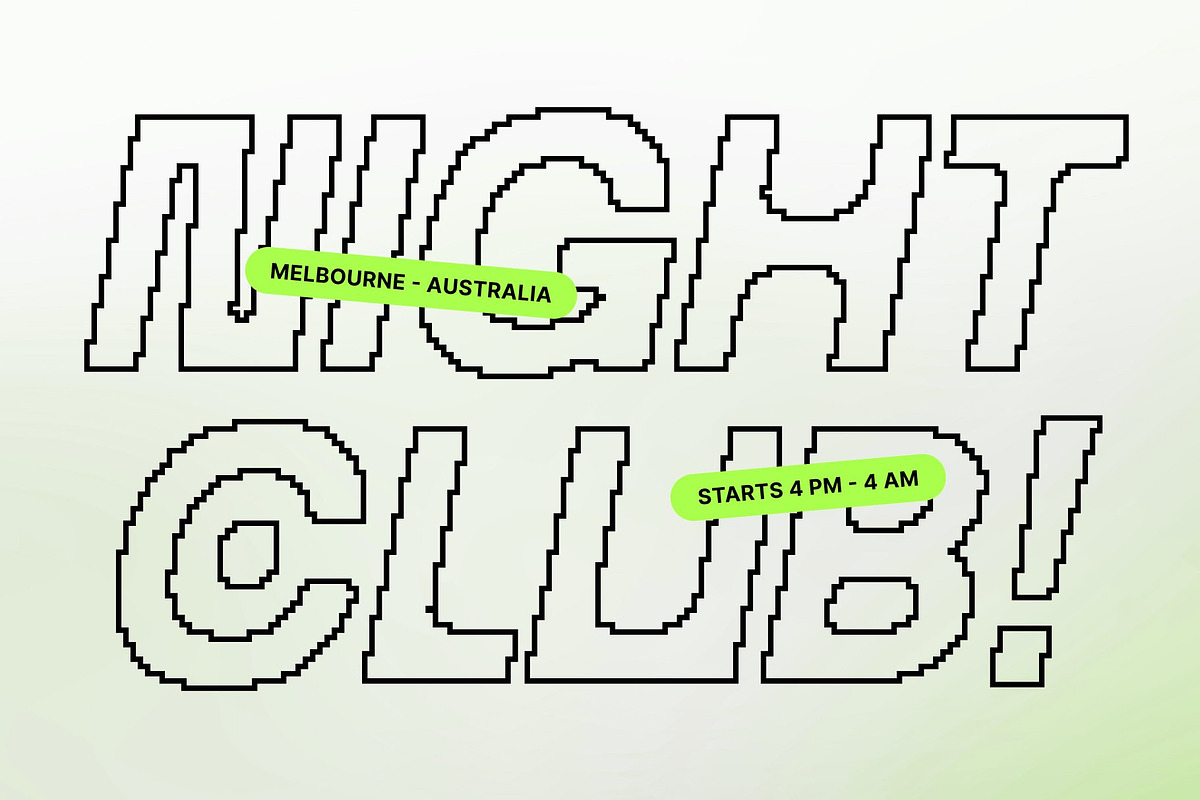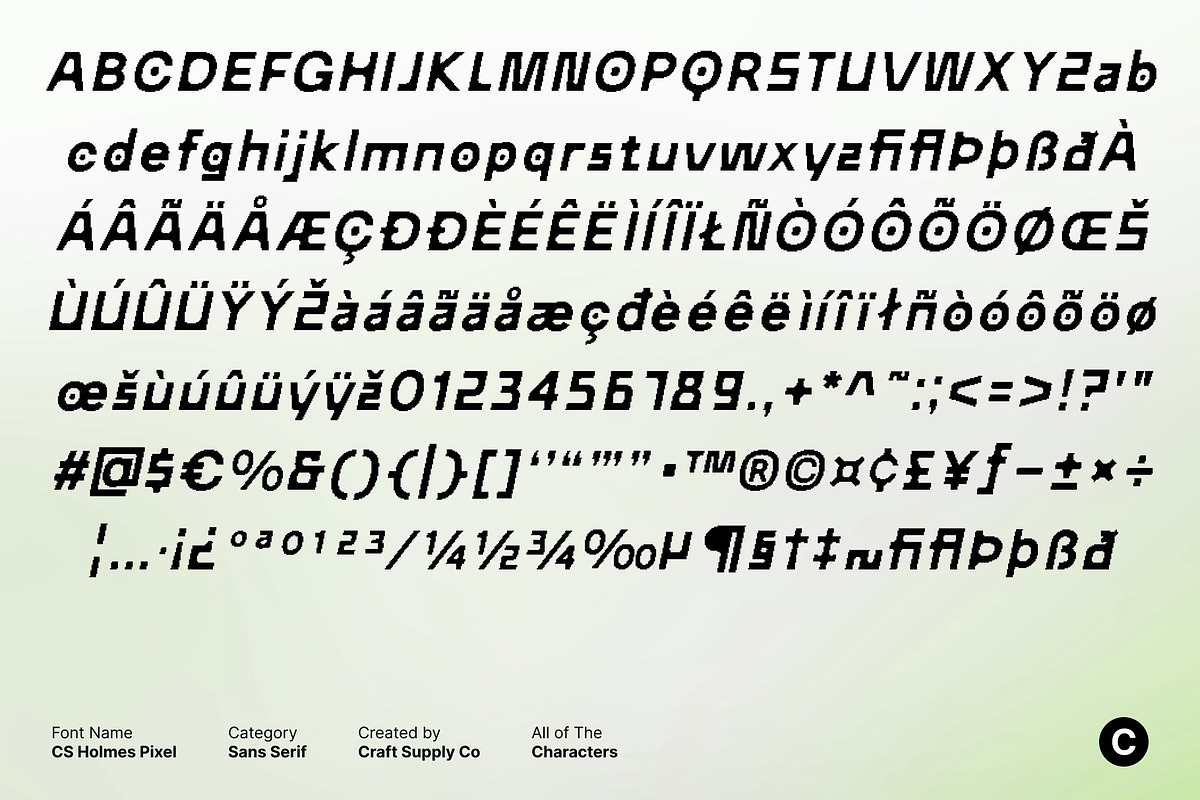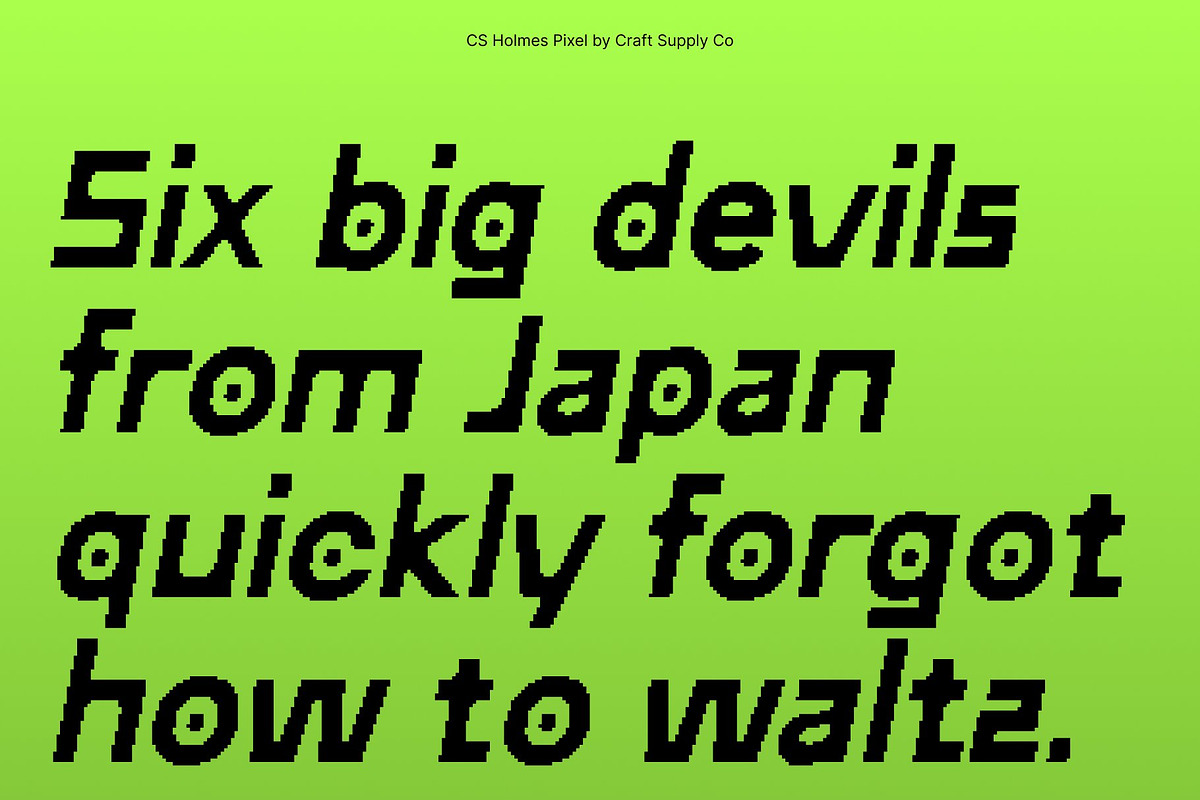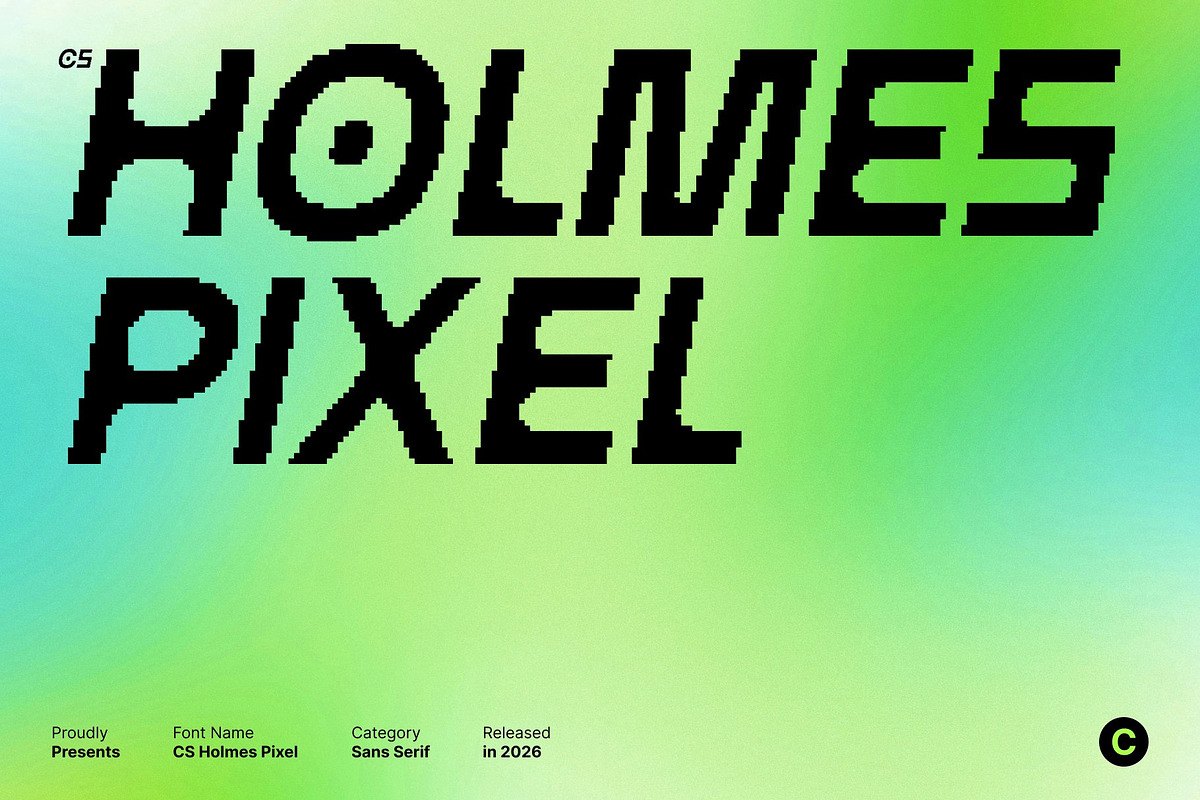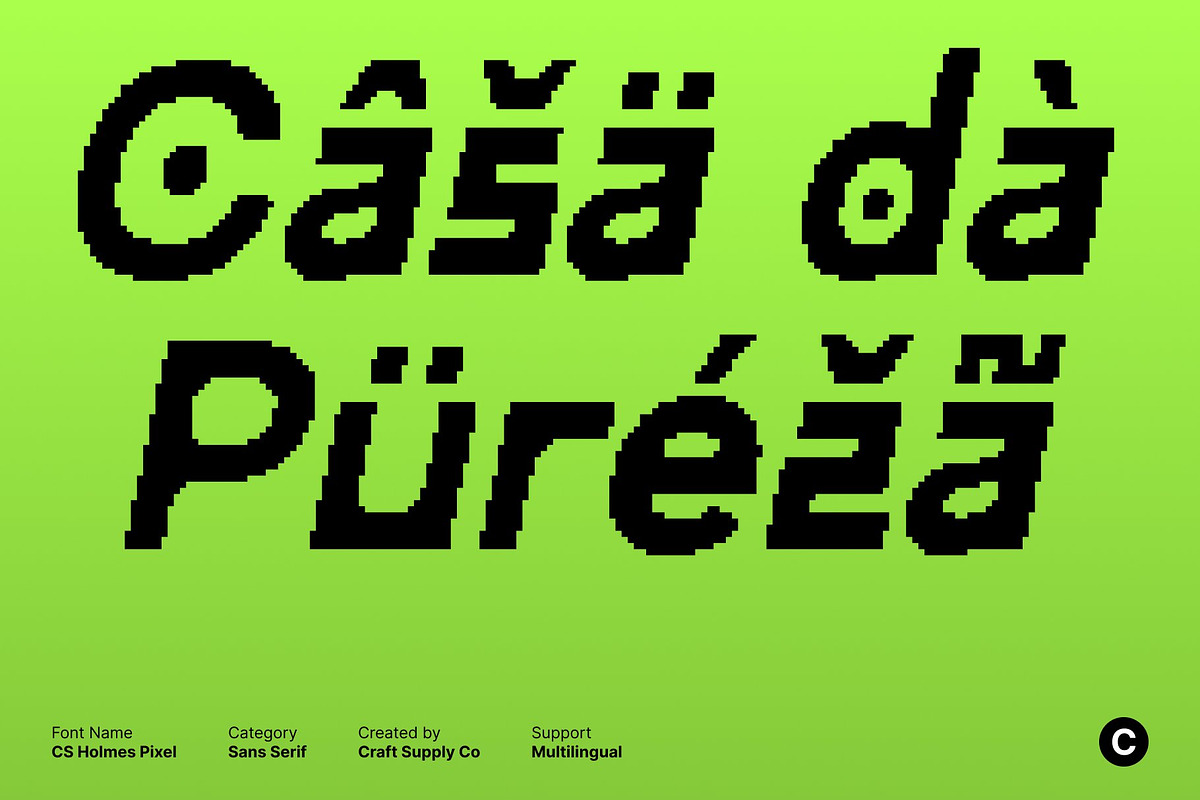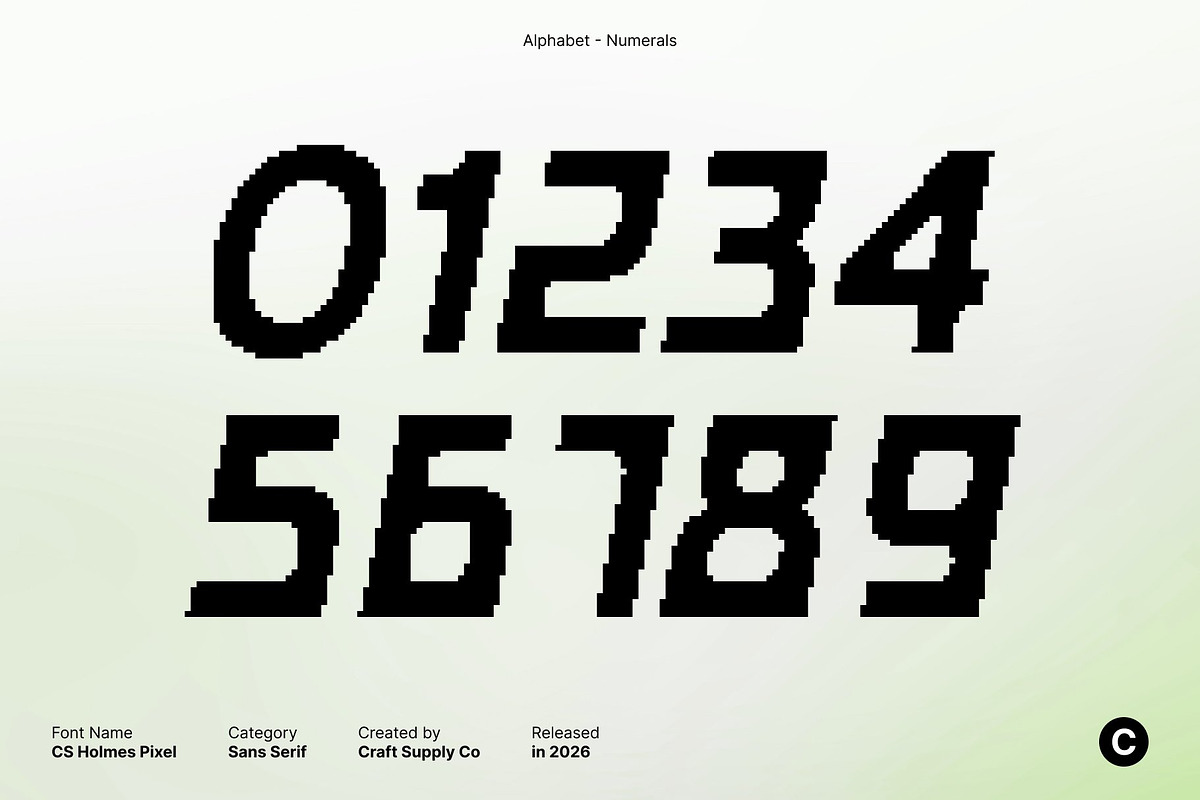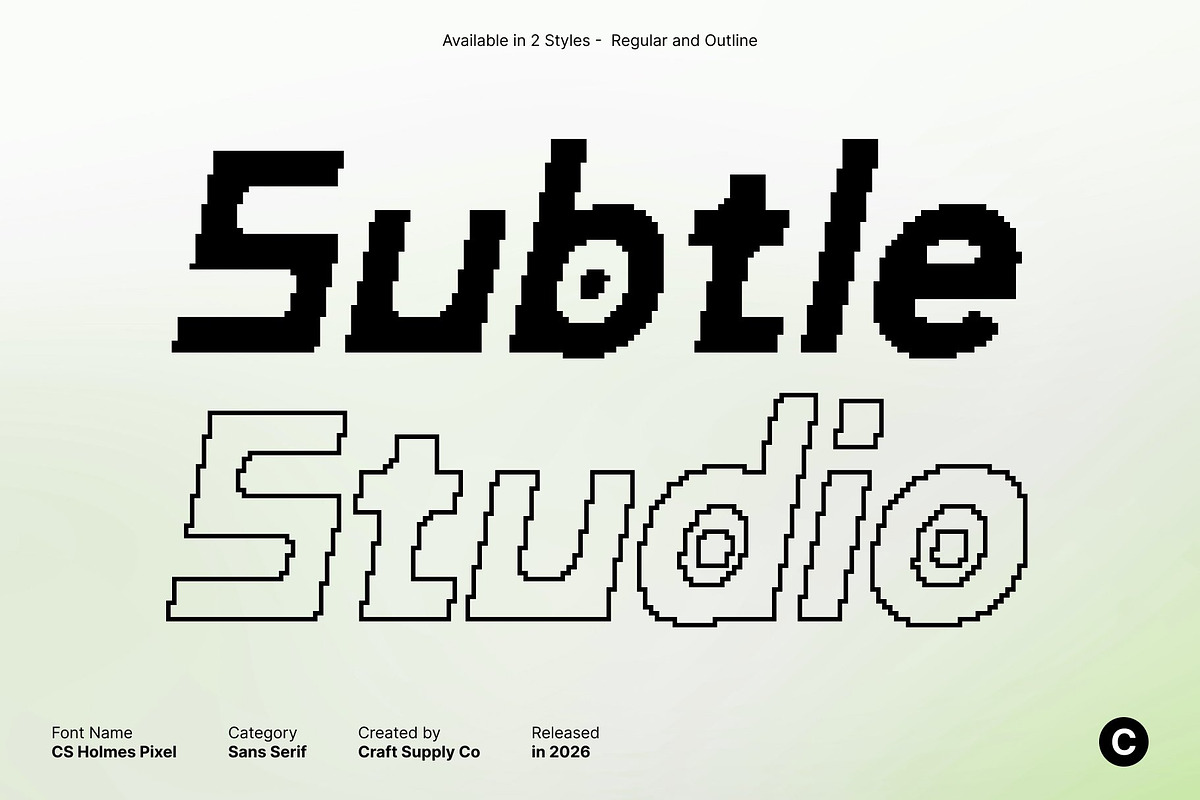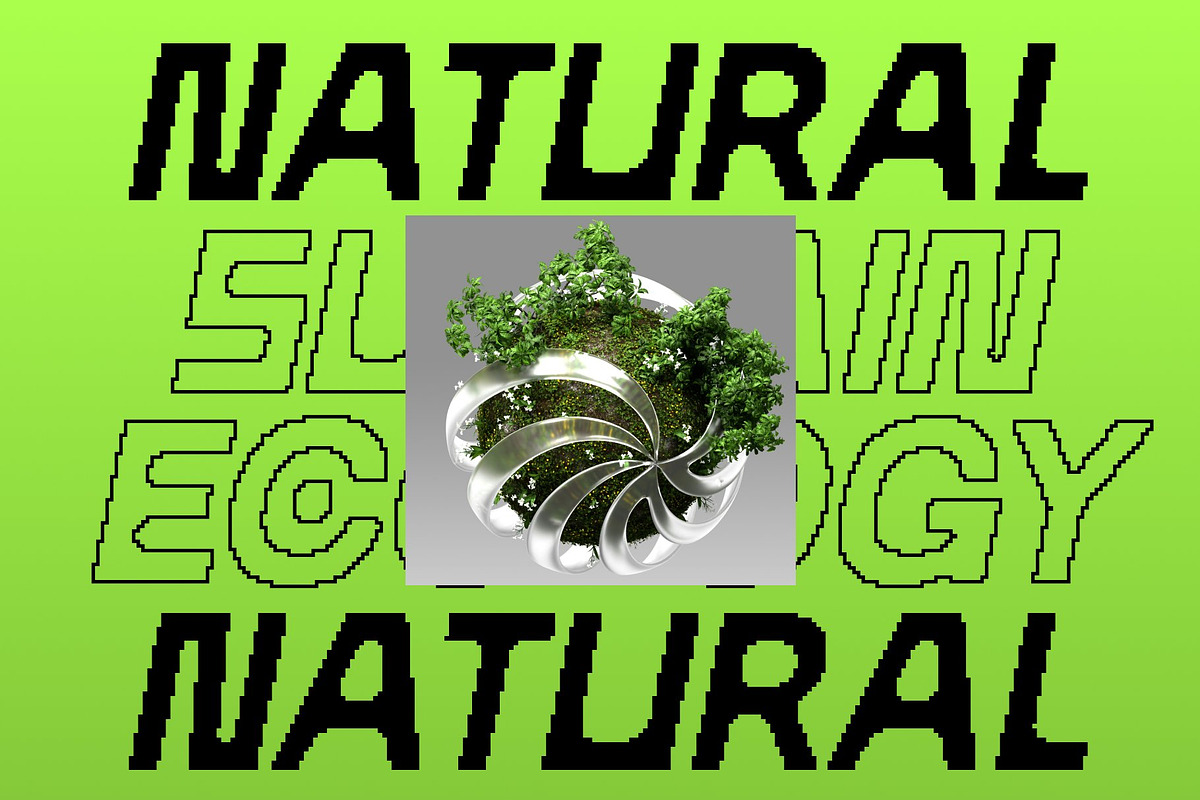
CS Holmes Pixel
CS Holmes Pixel – Industrial Sans Serif with Retro-Digital Strength
Modern Industrial Style with Pixel Precision This is a robust sans-serif font that combines a clean industrial aesthetic with subtle pixel detailing. Its geometric forms and strong lines convey modernity, reliability, and professionalism, while the pixel-inspired edges add a retro 8-bit digital touch, giving your designs both a contemporary and nostalgic feel.
Versatile for Modern and Creative Applications Ideal for logos, web interfaces, promotional materials, and packaging, this font adapts seamlessly to a wide range of design contexts. Its industrial sturdiness ensures your message is impactful, while the pixel accents make it stand out in digital and print media alike.
Clear, Readable, and Memorable This font balances strength and readability, making it perfect for projects that demand both clarity and visual authority. The pixel detail enhances its distinct character, ensuring your designs remain memorable and eye-catching.
Perfect for Bold, Professional, and Retro-Inspired Projects This font is the ideal choice for designs that require a modern industrial vibe with a hint of retro digital charm. From branding and editorial layouts to websites and promotional campaigns, it delivers a polished, professional, and uniquely pixelated edge.